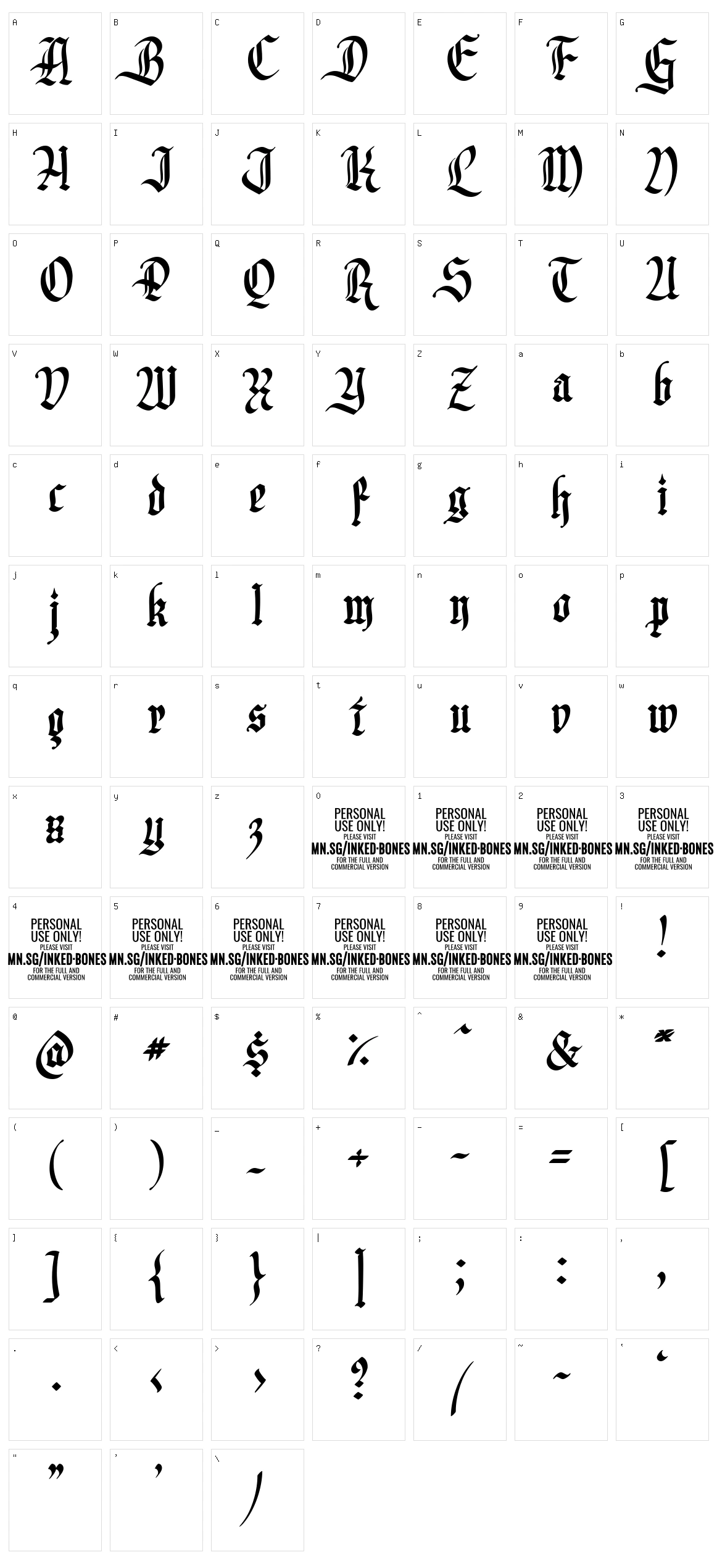
Inked Bones
Designed by: Mans Greback
Category: Medieval & Gothic
Inked Bones is a hand painted blackletter typeface, created by Måns Grebäck during 2019.
It works perfectly in medieval contexts as well as in modern Gothic style typesetting.
Use the typeface for a tattoo graphic or for your Middle Age project.
The font supports all Latin-based European languages, contains numbers and all symbols you'll ever need.